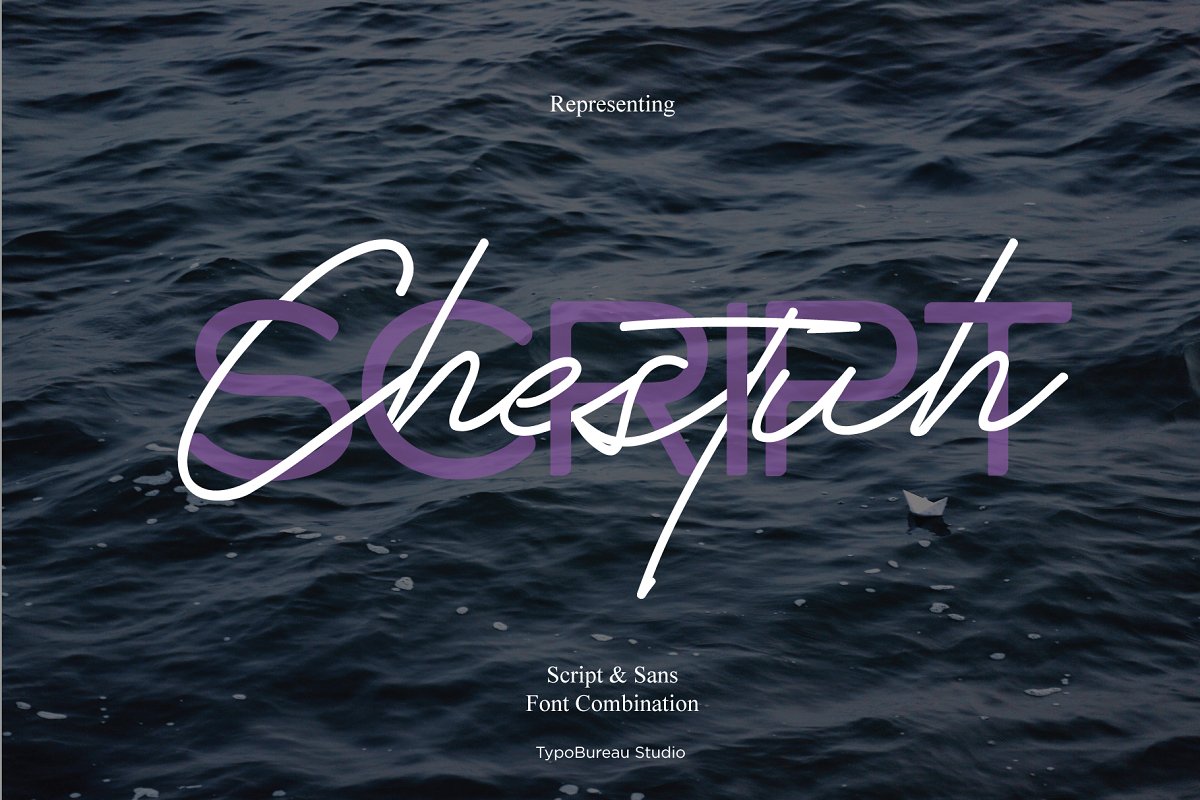
Chestuh Script and Sans – Font Duo | Freebie
Chestuh Script & Sans Duo Font
Chestuh script and sans is a commercial-use font duo combination of script and sans-serif typeface. We have tried to present the script and sans-serif all-caps font combination to complete your perfect design needs.
This font is ideal for handwritten quotes, merchandise, logos, headers, product packaging, posters, social media & greeting cards.
• Ligatures : ee, ff, ll, oo, ss, tt
• Diacrtics : ÀÁÂÃÄÅÇÈÉÊËÌÍÎÏÑÒÓÔÕÖÙÚÛÜÝàáâãäåæçèéêëìíîïðñòóôõöùúûüýÿ